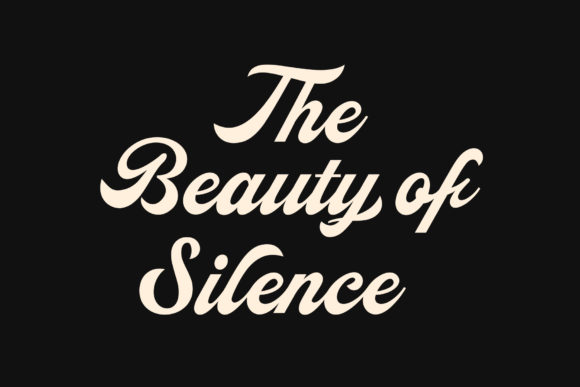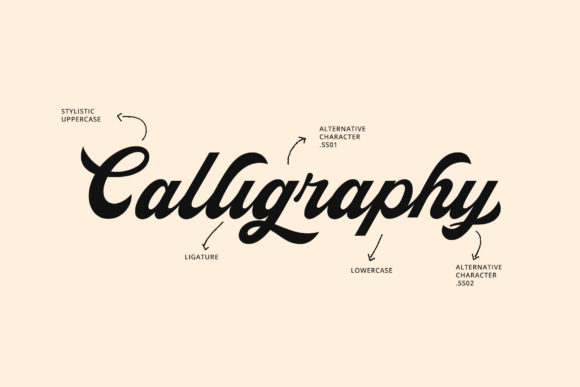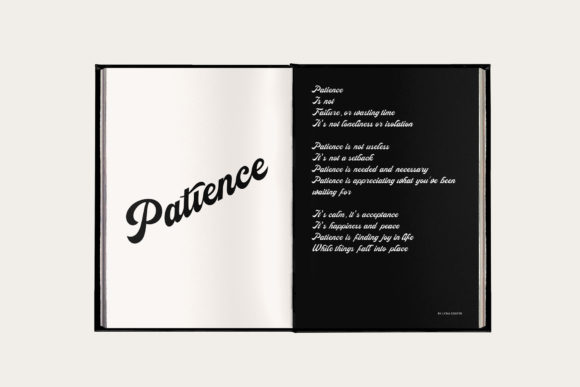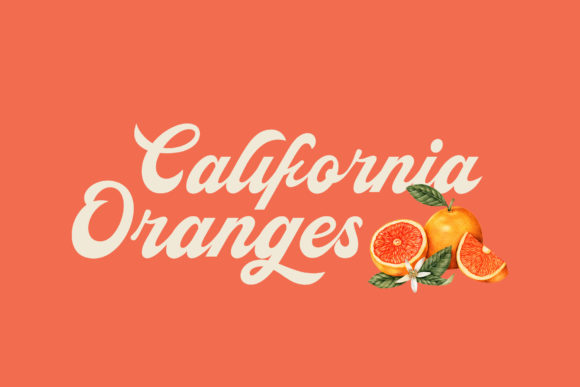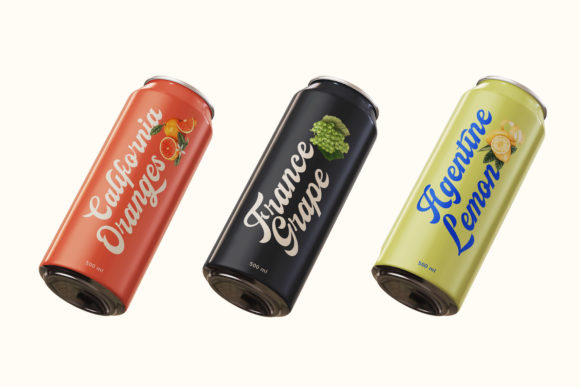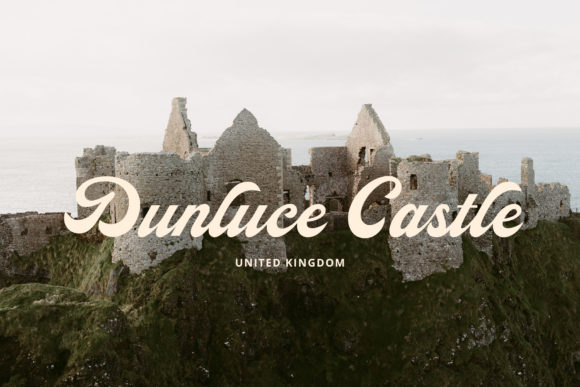
Unleash Your Creativity with the Timeless Charm of Ashglen Script Font
Do you ever find yourself scribbling down ideas in a notebook, only to later refine them into something truly special? For designers, that moment of inspiration can be a catalyst for something beautiful. And when it comes to adding a personal touch to your designs, there’s one font that stands out from the rest: Ashglen Script Font.
With its elegant, handwritten style, Ashglen Script Font is the perfect choice for designers looking to add a touch of sophistication to their work. Whether you’re creating a wedding invitation, a thank you card, or a logo, this font is sure to leave a lasting impression. Its versatility and timeless charm make it a valuable asset for any designer looking to elevate their work.
Ashglen Script Font Key Features
- Font Style: Handwritten Script Font with elegant and refined feel
- Unique Characteristics: Distinctive letterforms, subtle flourishes, and elegant connections between letters
Ashglen Script Font Review
I’ve had the chance to work with the Ashglen Script Font, and here’s my honest review.
- Unique and elegant script design that adds a touch of sophistication to any project.
- Highly legible and easy to read, even in smaller font sizes.
- Wide range of languages supported, making it a great choice for multilingual projects.
- Works well for both print and digital applications.
- Some users may find the font too ornate or decorative, which may not be suitable for all projects.
- The font may not be ideal for text-heavy content, as the script style can make it difficult to read large amounts of text.
- Some characters may not be available in all font styles or weights.
Overall, I think the Ashglen Script Font is a beautiful and versatile choice for designers who want to add a touch of elegance to their projects. However, it’s not a one-size-fits-all solution, and designers should carefully consider their project requirements before using this font.
Ashglen Script Font: A Practical Application Guide
Tips for Getting the Most Out of Ashglen Script
To get the most out of Ashglen Script, use it for titles, headings, and quotes. It’s particularly effective for creating a sense of elegance and sophistication. You can also experiment with different font sizes and colors to add visual interest.
Ashglen Script is commonly used for:
- Quotes and inspirational graphics
Q: What is the recommended font size for Ashglen Script?
The recommended font size for Ashglen Script is between 18-24 points for body text and 36-48 points for headings. This will help maintain legibility and balance in your design.
Q: Does Ashglen Script support ligatures?
Yes, Ashglen Script includes a set of ligatures that can be activated in most design software. This will enhance the overall appearance and flow of your text by reducing the number of visible letters and improving readability.